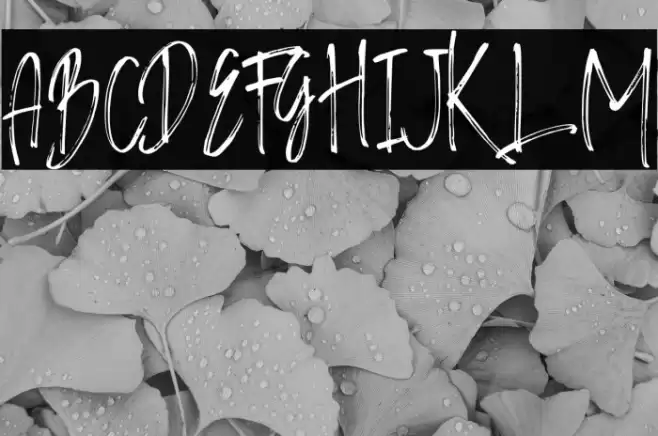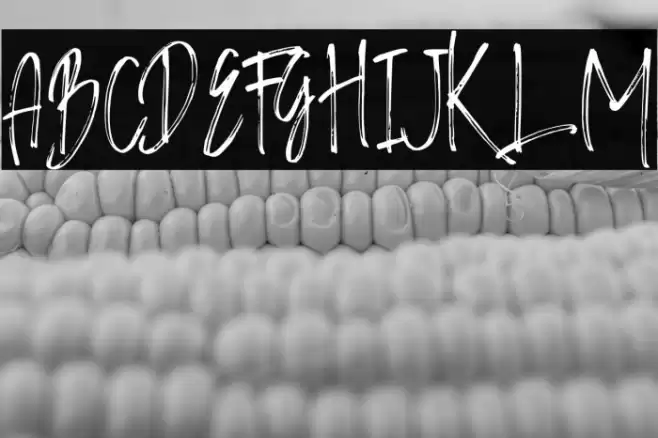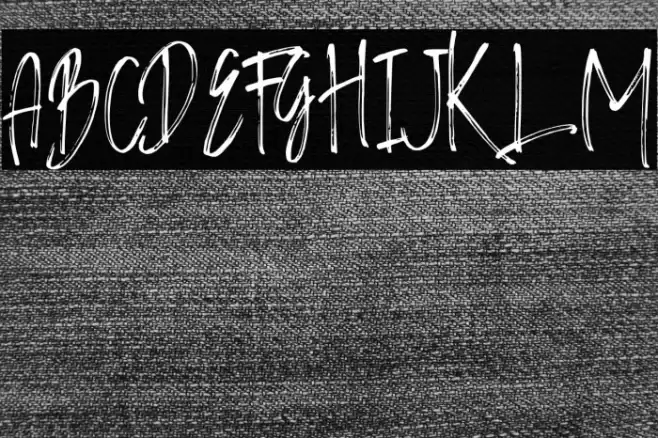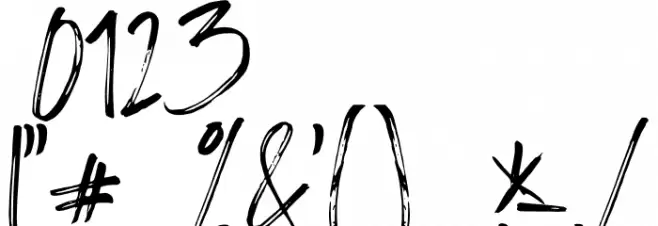
World Pressure Font
World Pressure Description
This font features a dynamic and expressive handwritten style, characterized by its bold, sweeping strokes and a sense of fluidity. The letters are slightly slanted, giving an impression of motion and energy. The uppercase and lowercase letters maintain a consistent style, with exaggerated curves and loops that add a playful and artistic touch. The numbers and special characters follow the same expressive design, ensuring a cohesive look across all elements. This font's unique style makes it stand out, offering a creative and informal vibe.
A bold, expressive handwritten font with dynamic strokes and artistic flair from Uncategorized fonts.
- Font: World Pressure
- Proposed Projects: Ideal for creative projects such as greeting cards, posters, branding, and social media graphics where a personal and artistic touch is desired.
World Pressure UPPERCASE
World Pressure LOWERCASE
World Pressure OTHER CHARS